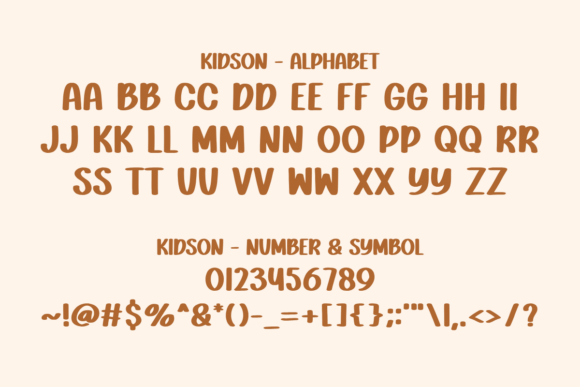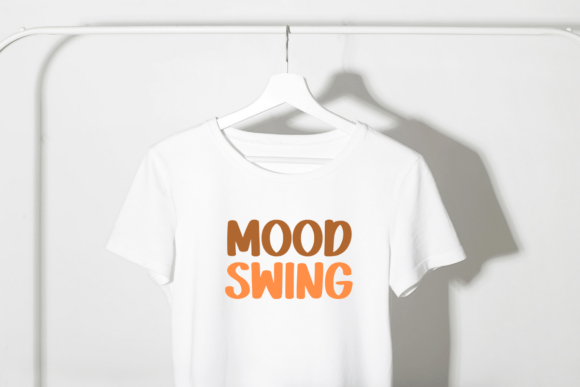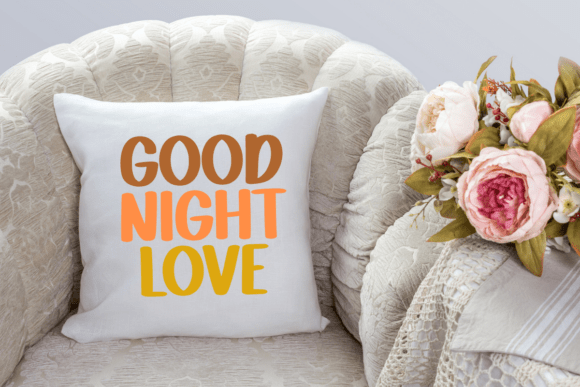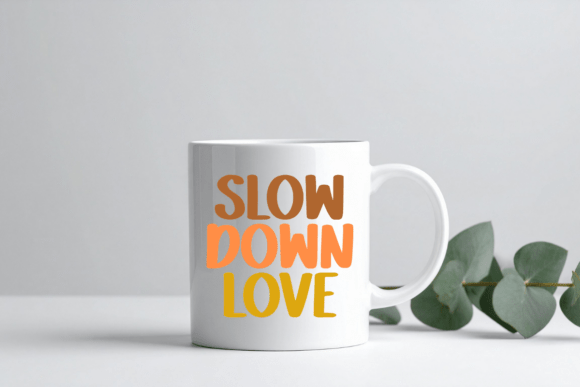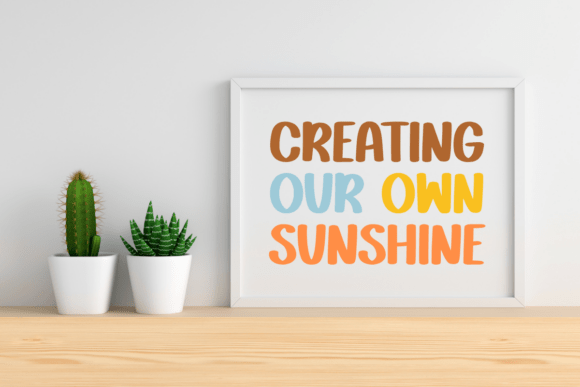
Introduction to Kidson Font
As a designer, there’s nothing quite like the thrill of bringing a new creative project to life. Whether it’s a custom acrylic keychain or a whimsical quote design, the right font can make all the difference. And that’s exactly why we’re excited to introduce you to the Kidson Font – a playful and aesthetic handwriting display font that’s sure to bring a sense of joy and personal warmth to all your creative endeavors.
With its clean, bouncy lines and charming monolinear weight, the Kidson Font radiates a friendly yet modern vibe that’s perfect for craft-based businesses and design projects alike. Whether you’re looking for a high-quality design resource for your next creative project or a free download to spice up your social media content, the Kidson Font is an excellent choice.
- Designed with a unique, playful style that adds a touch of whimsy to any creative project.
Honest Review: Kidson Font
I recently came across the Kidson Font, and I must say it’s a great addition to my design resource library. The font is a high-quality, free download that’s perfect for creative projects.
- What works well: ✨ The font’s modern design and clean lines make it versatile for use in various design applications. The transparent background also allows for seamless integration with other design elements.
- What works well: ✨ The Kidson Font is highly customizable, with a range of font weights and styles to choose from, making it easy to find the perfect fit for your design project.
However, I did notice a few limitations ⚠️. The font may not be suitable for projects that require a lot of complex typography or font pairing, as it can look a bit plain in those situations.
Overall, I’m impressed with the Kidson Font and would definitely recommend it to designers looking for a high-quality, free design resource. It’s a great option for projects that require a clean and modern aesthetic.
Kidson Font is commonly used in branding, marketing materials, and social media graphics. It’s also a great choice for creating eye-catching titles and headings.
Compared to Kidson Font, Great Vibes Font has a more refined and polished look, making it suitable for formal events and professional designs.
Aleo Font compares to Kidson Font in terms of its modern aesthetic, but it lacks the whimsical feel of Kidson Font, making it more suitable for business and tech-related designs.